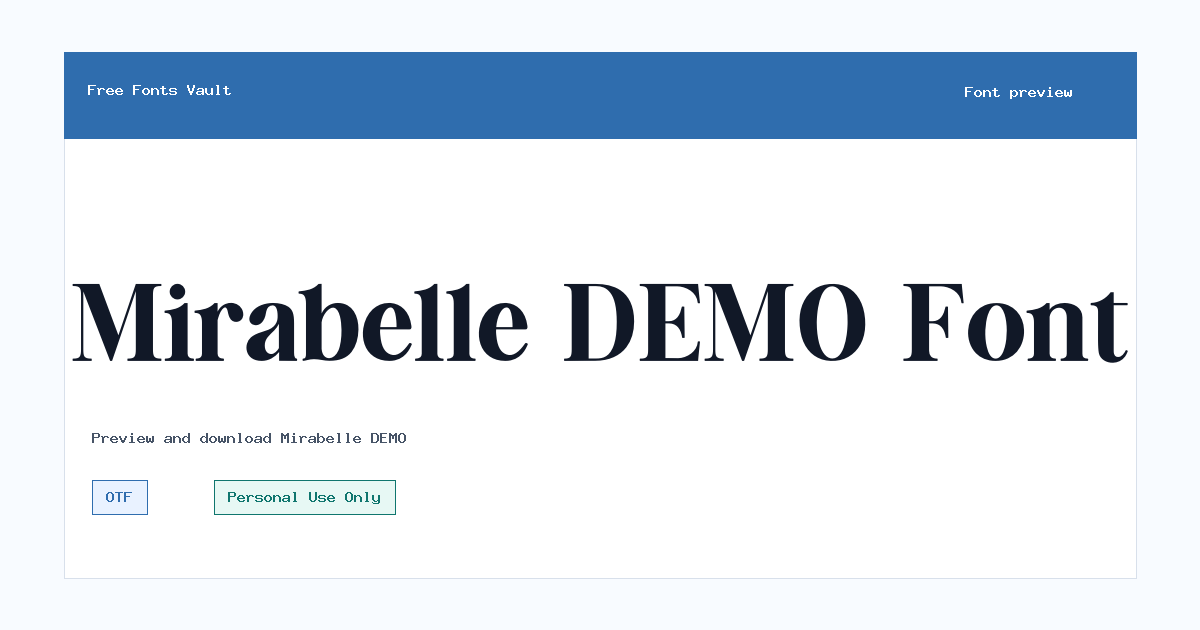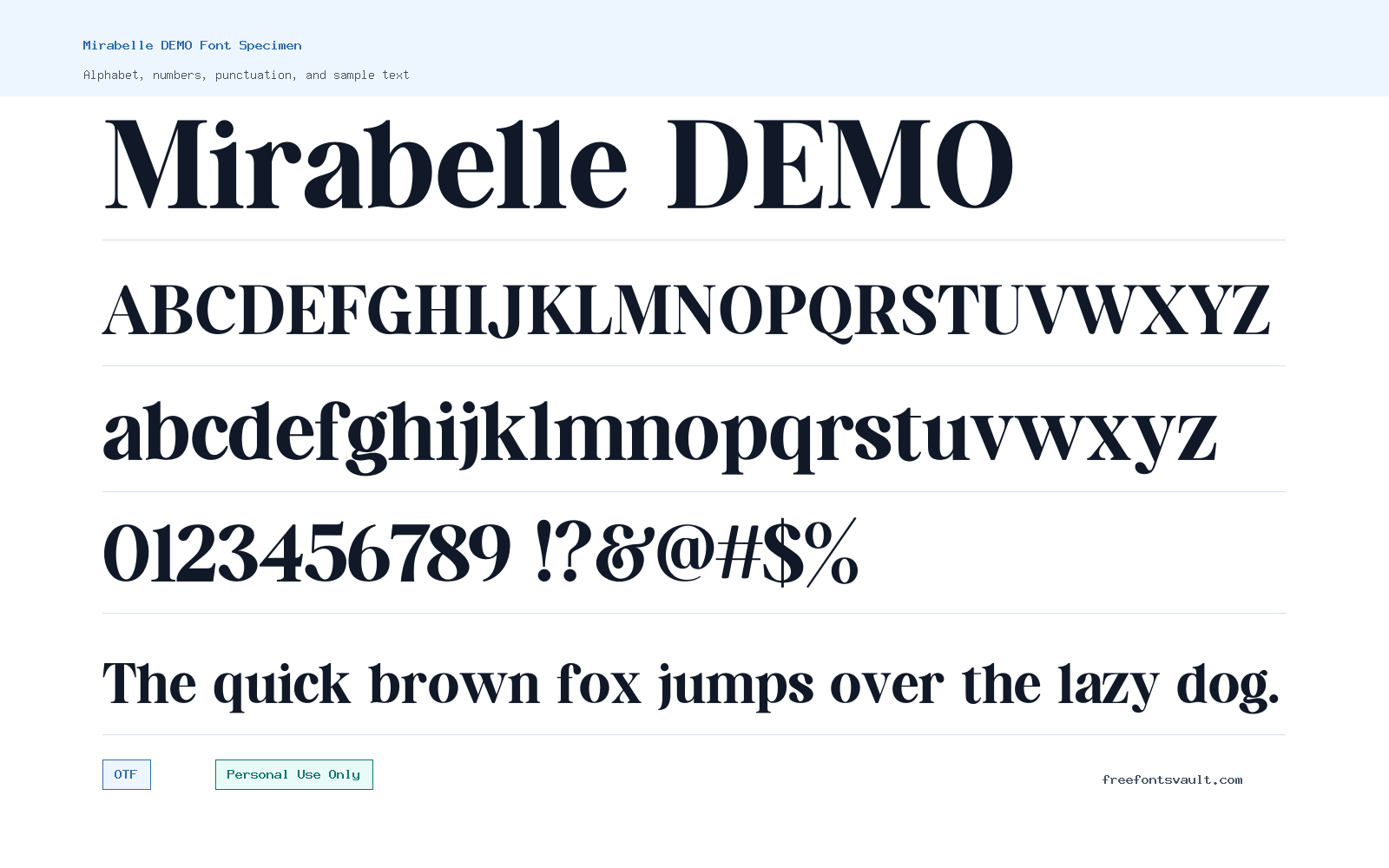
Mirabelle DEMO
Mirabelle DEMO font.
Mirabelle DEMO is a personal-use serif font from Jimtype Studio. It is best approached as a display font for trying out elegant headings, branding ideas, poster text, and visual mockups before deciding whether the full license fits your project.
About Mirabelle DEMO
Mirabelle DEMO has the character of a refined serif typeface, making it more suitable for short, expressive text than for long reading paragraphs. The demo name suggests that this version is intended for testing and preview work, so it works well when you want to see how the style behaves in a title, logo sketch, invitation layout, packaging concept, or social graphic. Use the preview tool with your own words rather than judging it only from sample text. Names, brand phrases, and short headlines often reveal spacing, contrast, and letter-shape details that are easy to miss in a generic preview.
For design work, keep Mirabelle DEMO focused on the parts of a layout that need personality. Try it at larger sizes for main titles, poster headlines, website hero text, fashion or beauty-style mockups, editorial covers, and mood-board typography. Avoid relying on it for body copy unless your design uses very short supporting text, because decorative or high-contrast serif styles can become tiring in long paragraphs. If you are testing it for logo work, check the exact letters in the brand name, including repeated letters, uppercase forms, punctuation, and spacing around narrow characters. A typeface can look strong in one word and feel uneven in another, so always test the real wording before committing.
Mirabelle DEMO pairs best with a quieter companion font. A clean sans serif can handle descriptions, navigation, captions, and calls to action while Mirabelle DEMO stays in the spotlight. For a softer editorial look, pair it with a simple old-style or text serif that has less visual contrast. Avoid pairing it with another dramatic display font unless the layout is intentionally decorative, because competing personalities can make the design feel crowded. In web mockups, use Mirabelle DEMO for hero lines or featured titles, then switch to a highly readable text face for menus, product descriptions, and longer sections. This gives the page a clear hierarchy without sacrificing usability.
- Serif display style suited to titles, logo drafts, posters, and branding mockups
- Single regular style with normal weight, useful for straightforward headline testing
- Logo concepts and wordmark experiments
- Poster headlines and event graphics
- Editorial-style titles and cover mockups
- Website hero text in design previews
- Packaging, label, and boutique branding drafts
- Invitation, greeting card, and stationery concepts
What kind of font is Mirabelle DEMO?
Mirabelle DEMO is presented as a serif font. It is best used for display typography such as titles, logo drafts, posters, and visual mockups.
Is Mirabelle DEMO good for body text?
It is better suited to short display text. For long paragraphs, pair it with a more neutral and readable text font.